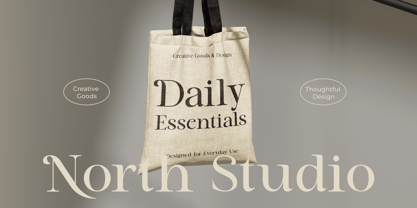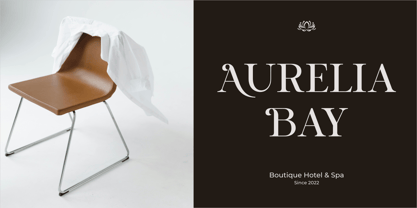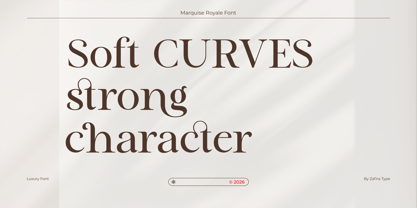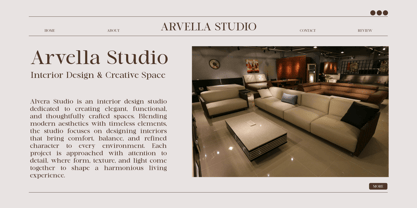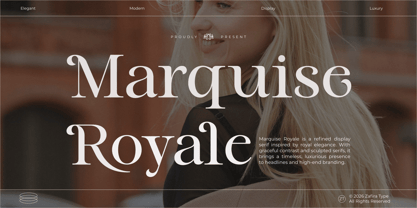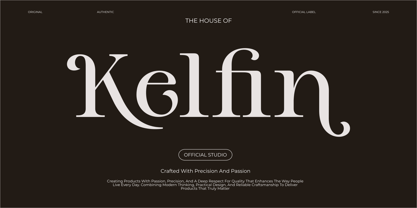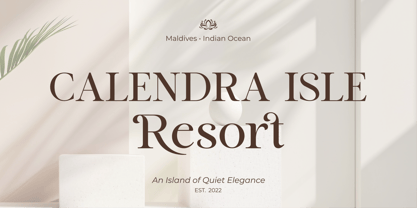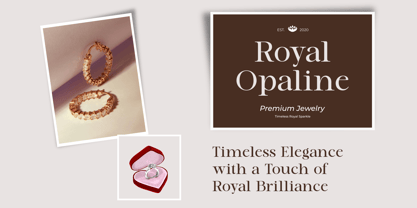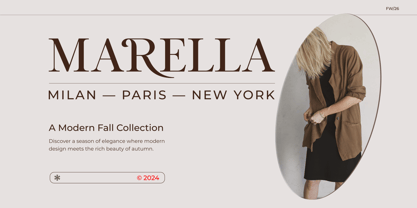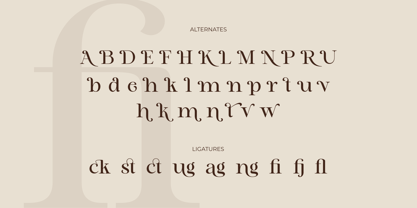
Marquise Royale
by Zafira Type
The Marquise Royale Font Family was designed by Su Hirno and published by Zafira Type. Marquise Royale contains 2 styles and family package options. More about this family
Marquise Royale is a luxury serif typeface designed to capture the essence of timeless elegance and aristocratic beauty. With its refined high-contrast strokes, graceful curves, and sophisticated letterforms, this typeface evokes the charm of classic European editorial design and royal heritage. Perfect for luxury branding, magazines, high-end packaging, jewelry brands, and elegant logos, Marquise Royale delivers a sense of prestige and exclusivity. Its delicate yet confident presence makes every word feel polished, stylish, and unforgettable.